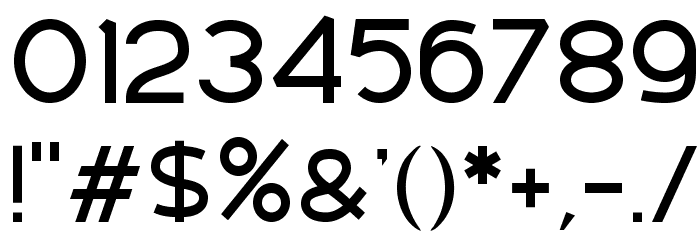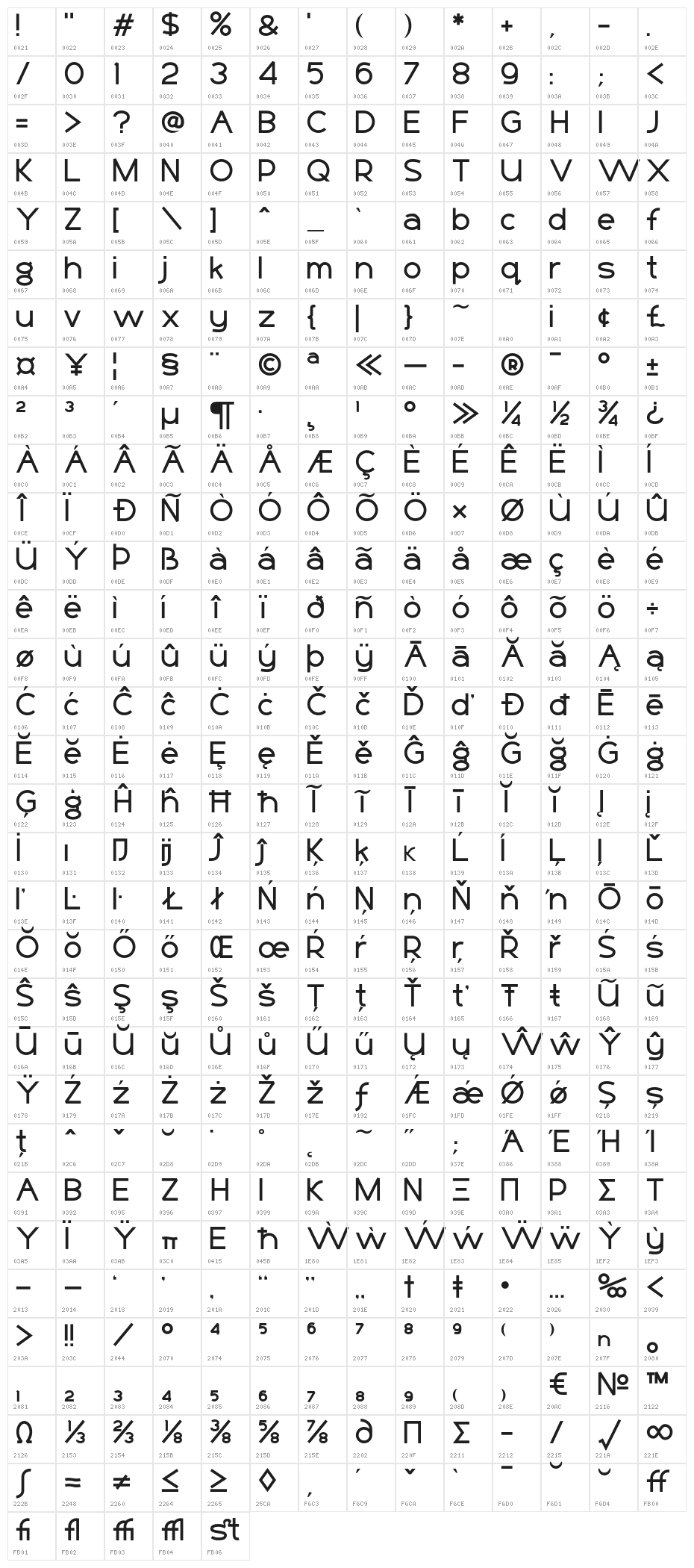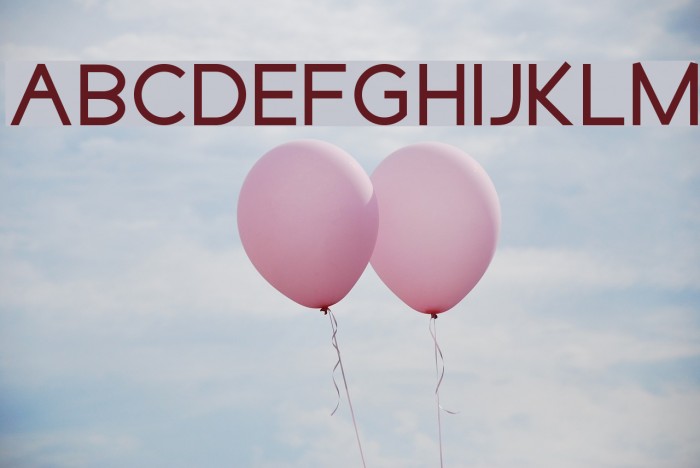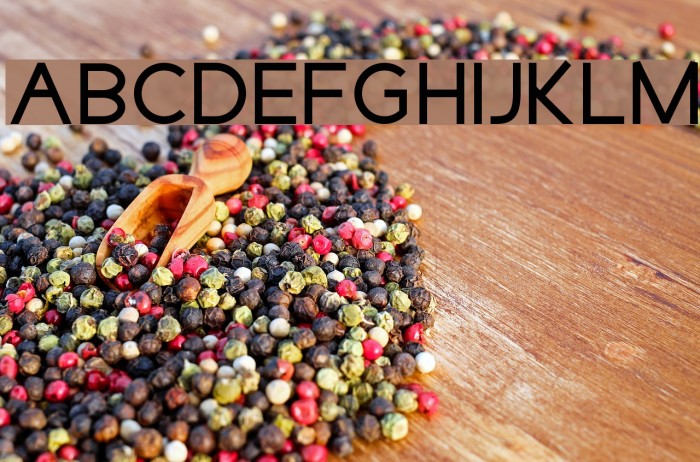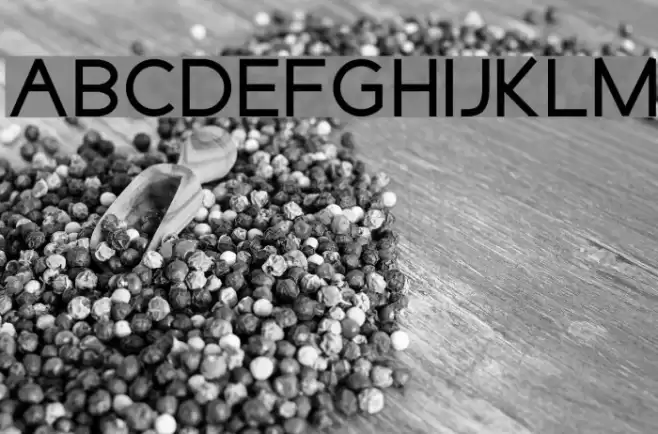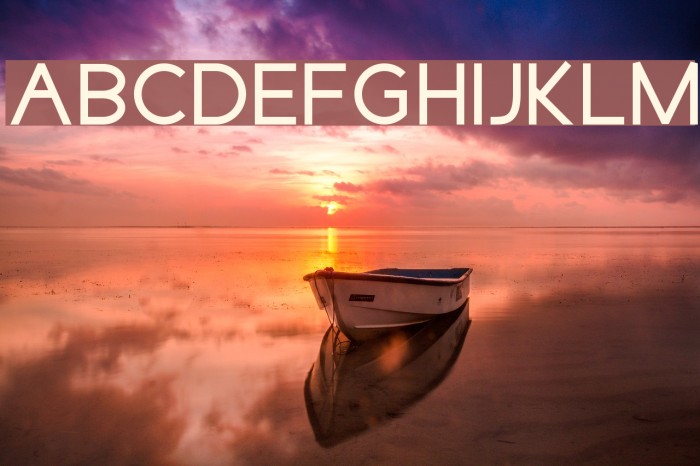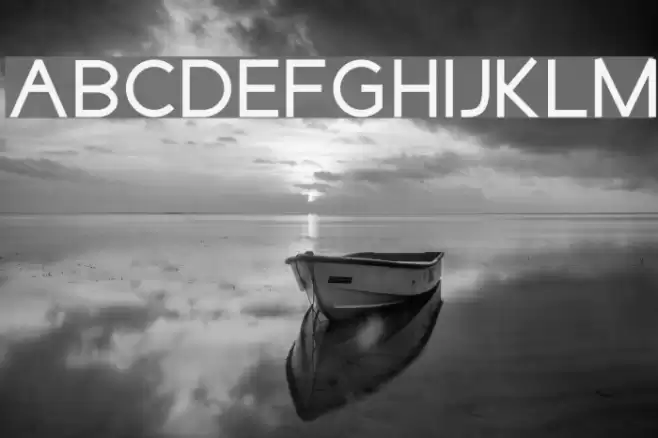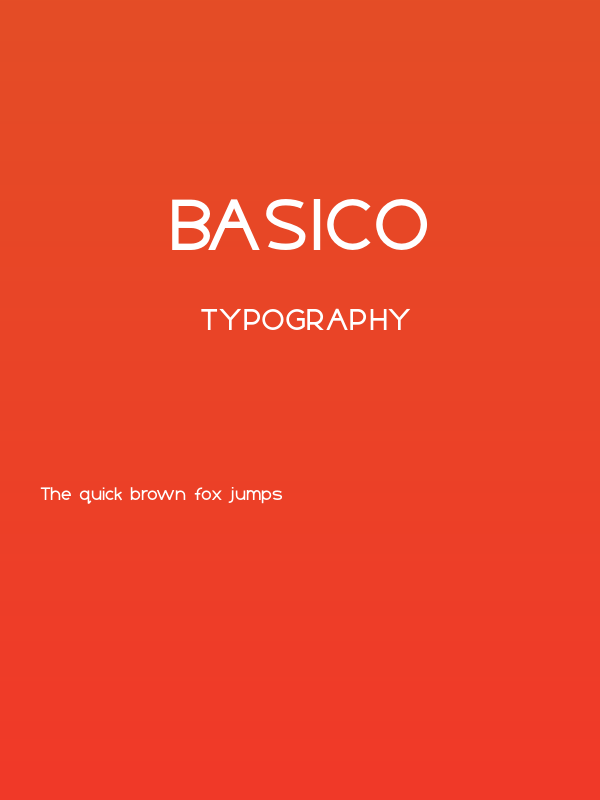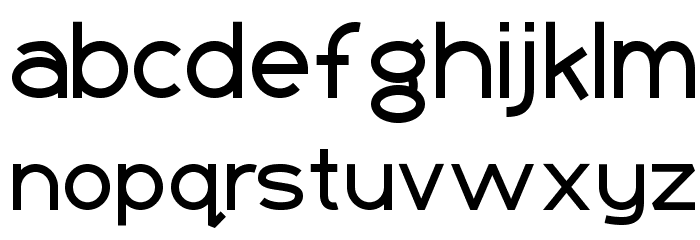
Basico Font
Basico Description
This font features a clean and modern sans-serif design with uniform stroke widths, giving it a sleek and contemporary appearance. The characters are well-proportioned, with a geometric influence that enhances readability and visual appeal. The uppercase letters are bold and assertive, while the lowercase letters maintain a friendly and approachable feel. The numerals are clear and distinct, making them suitable for various applications. The special characters are designed to complement the overall style, ensuring consistency across different uses.
| Proposed Projects | Ideal for branding, web design, advertising, and editorial projects where a modern and clean aesthetic is desired. |